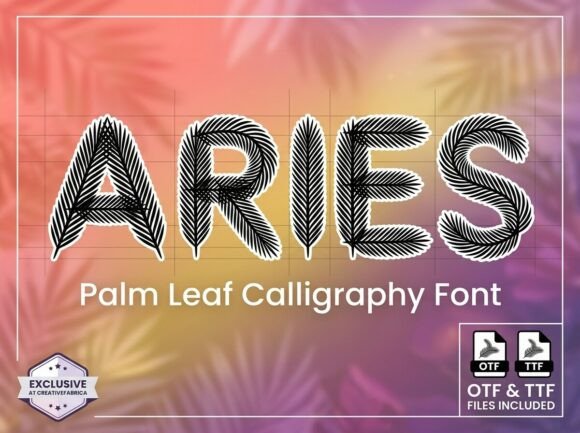
Escape to a Tropical Paradise with Aries Font
I’ll never forget the design project that led me to discover Aries Font. I was working on a branding campaign for a beach resort, and I was struggling to find the perfect font that captured the carefree, tropical vibe of the destination. The client wanted something that felt both modern and organic, with a dash of exotic personality. After hours of searching, I stumbled upon Aries Font, and it was love at first sight! 🌴
A Personal Review of Aries Font
- Unique and bold letterforms constructed from hand-drawn palm fronds and leaf textures 🌿
- Perfect blend of organic nature illustration and modern vacation branding 🌸
- Heavy structural weight that makes a statement 💪
- Exotic personality that’s perfect for tropical-themed designs 🏖️
- Works beautifully for headlines, titles, and social media headers 📱
While Aries Font is an amazing choice for many design projects, there are a few things to keep in mind:
- Might not be the best choice for body text or long paragraphs due to its bold and ornate nature 📝
- Some characters may not work well at very small font sizes, so it’s best to use it at larger sizes 🖥️
- Limited availability of stylistic alternates, but the existing ones are quite versatile 🤔
The Story Behind Aries Font 🌿
Aries Font was designed with the intention of capturing the carefree spirit of a tropical paradise. The designer, inspired by exotic getaways and lush botanical gardens, created a font that would transport designs to a breezy and botanical world. With its unique blend of organic and modern elements, Aries Font has become a go-to choice for designers looking to add a touch of tropical flair to their work 🌴
| What makes Aries Font unique? | Aries Font features bold letterforms constructed entirely from hand-drawn palm fronds and leaf textures, giving it a distinctive and exotic personality. |
| Is Aries Font suitable for body text? | While Aries Font is stunning for headlines and titles, it might not be the best choice for body text due to its bold and ornate nature. |